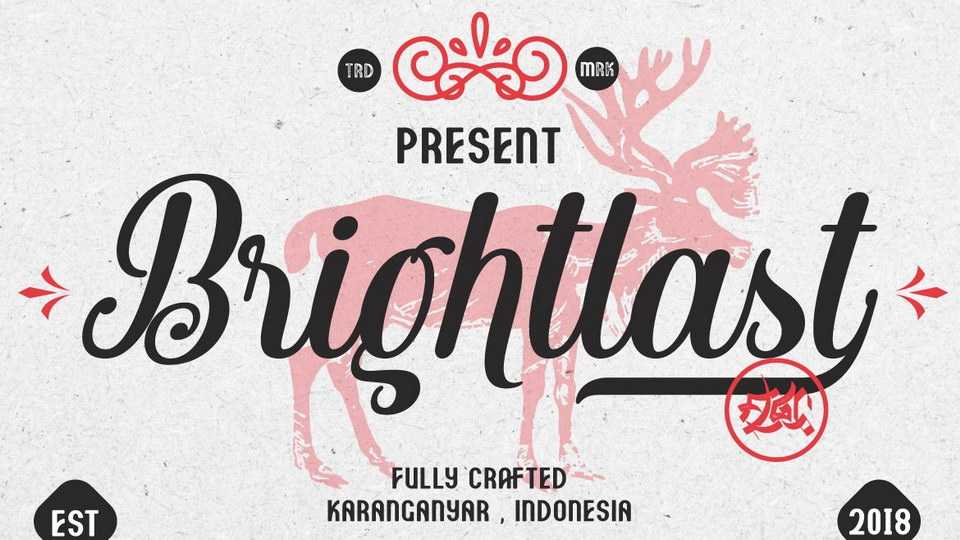
Download Brightlast font, a beautiful script inspired by vintage bar signage, hotel signage, barbershop signage ect. Brightlast has a classic impression but still elegant look that suitable for modern and classic designs project.
Designer: FallenGraphic Std